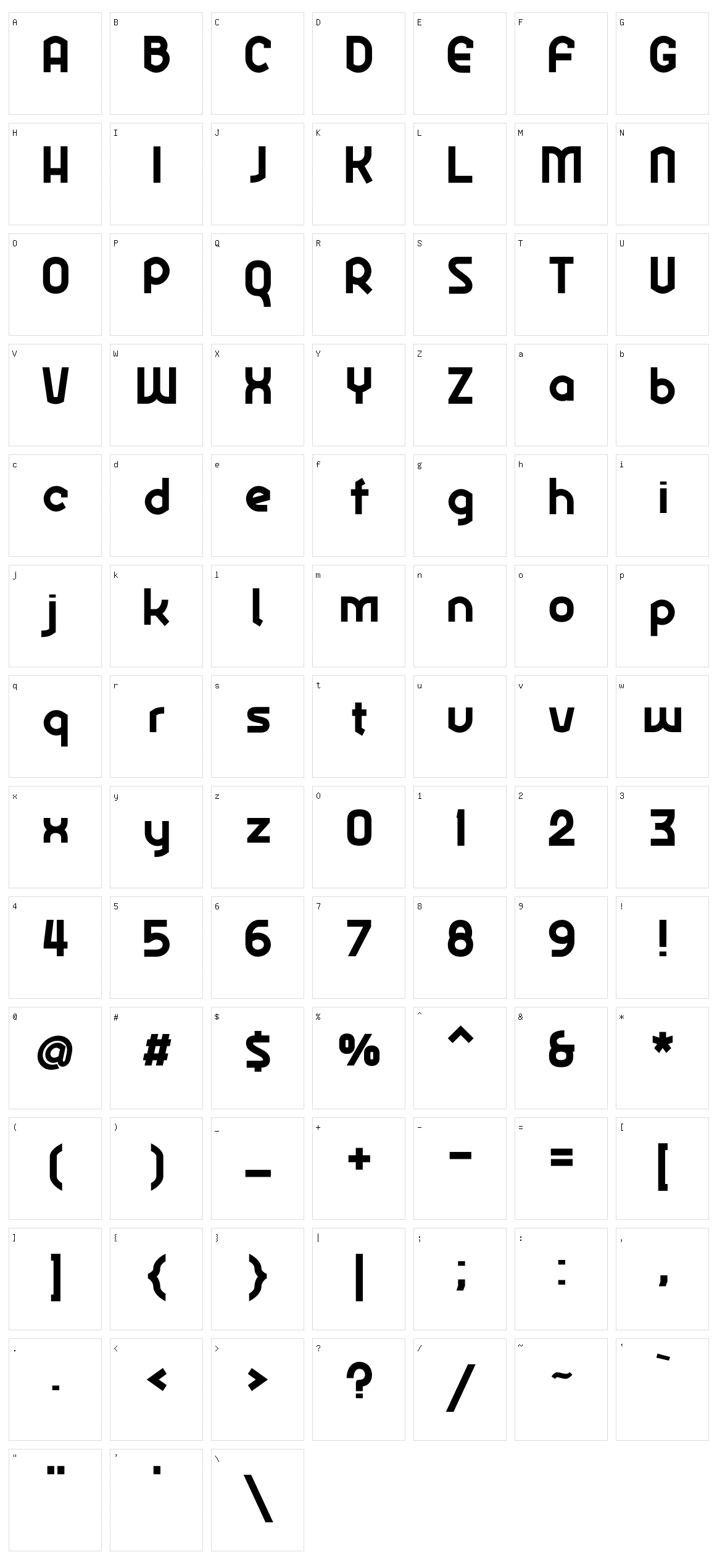
Ekela is a simple, sans serif font. Suitable to a wide variety of designs due to its neat style, Ekela has the potential to become your favorite go-to font, no matter the occasion!
Ekela Condensed is a minimal and neat sans serif font. It can easily be matched to an incredibly large set of projects, so add it to your creative ideas and notice how it makes them stand out!